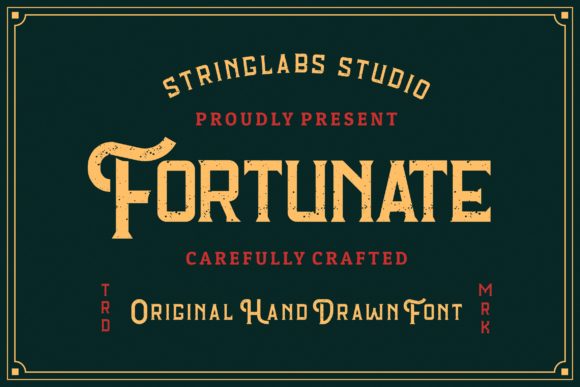
Unleash your inner designer with Fortunate Font, the typographic masterpiece that embodies boldness and sophistication. Its chunky, extended characters dance across your screen, captivating attention and leaving a lasting impression.
Fortunate Font is the ultimate weapon in your creative arsenal, a versatile tool that effortlessly elevates any project it graces. Logos, branding, packaging design—you name it, Fortunate Font transforms it into an unforgettable masterpiece. Its chunky, eye-catching characters demand attention, ensuring your message cuts through the noise and resonates with your audience.
Imagine your logo, emblazoned with the bold, confident strokes of Fortunate Font. It's a beacon of strength and determination, drawing customers to your brand like moths to a flame. Your packaging, adorned with the sophisticated curves of Fortunate Font, exudes an air of elegance and luxury, enticing buyers to indulge in your products.
But Fortunate Font isn't just about aesthetics; it's a font that speaks to your emotions. Its bold strokes evoke a sense of power and confidence, while its sophisticated curves convey a touch of whimsy and charm. Whether you're crafting a message of inspiration or a call to action, Fortunate Font amplifies your words, infusing them with an unmistakable touch of personality.
Join the ranks of design visionaries who have embraced Fortunate Font, the font that transforms ordinary creations into extraordinary works of art. Its versatility knows no bounds, making it the perfect choice for designers of all levels. Whether you're a seasoned pro or just starting your creative journey, Fortunate Font empowers you to express yourself with confidence and flair.